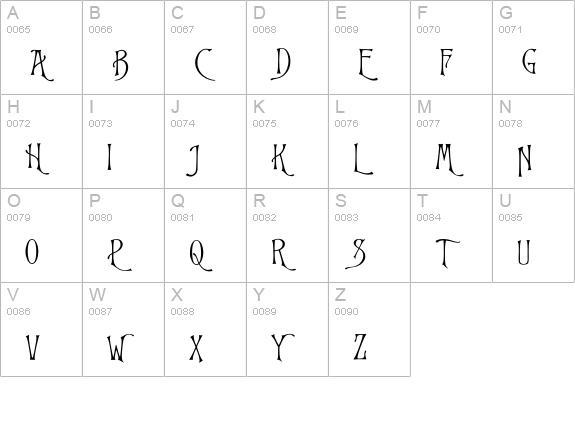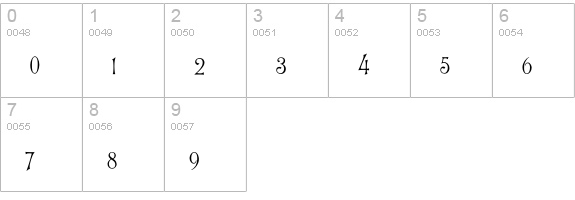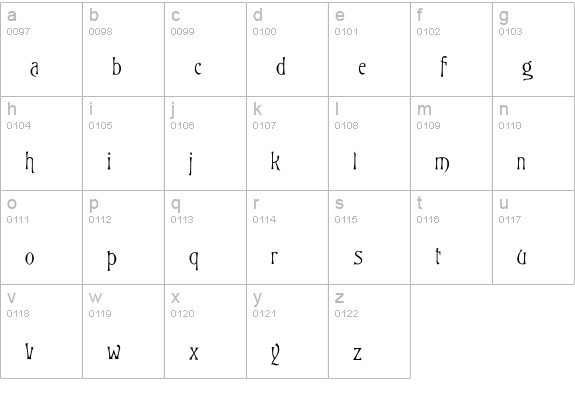
Glorietta Font Details
Glorietta font is a stunning and versatile typeface that exudes elegance and modernity. With its clean lines and sleek curves, Glorietta is perfect for a wide range of design projects, from branding to editorial layouts. This font strikes the perfect balance between sophistication and readability, making it a must-have for any designer looking to elevate their work. The best part is that Glorietta font is completely free! You can easily download it at FontsMarket.com and start using it in your projects right away. Whether you're working on a website, a brochure, or a social media graphic, Glorietta font will add a touch of sophistication and style to your designs. Don't miss out on this fantastic opportunity to enhance your work with this beautiful and free font!